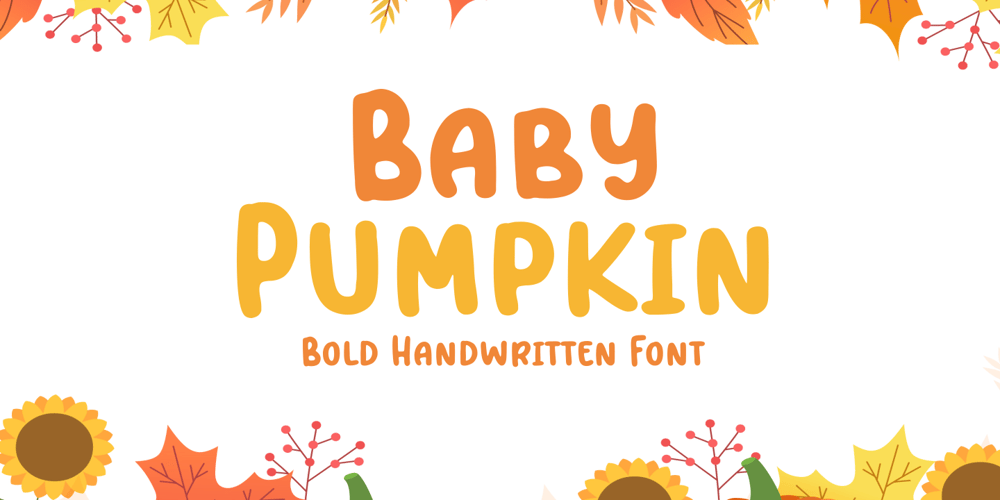
Baby Pumpkin
Baby Pumpkin font
Baby Pumpkin Font Family was designed by Muhamad Yusron Billah and published by Sronstudio. Baby Pumpkin contains 1 styles and family package options. Baby Pumpkin is a fun display Font font, this font Is perfect for lproduct packaging, product designs, label, photography, watermark, special events or anything.Baby Pumpkin comes with uppercase and lowercase letters, multilingual symbols, numerals, punctuation.